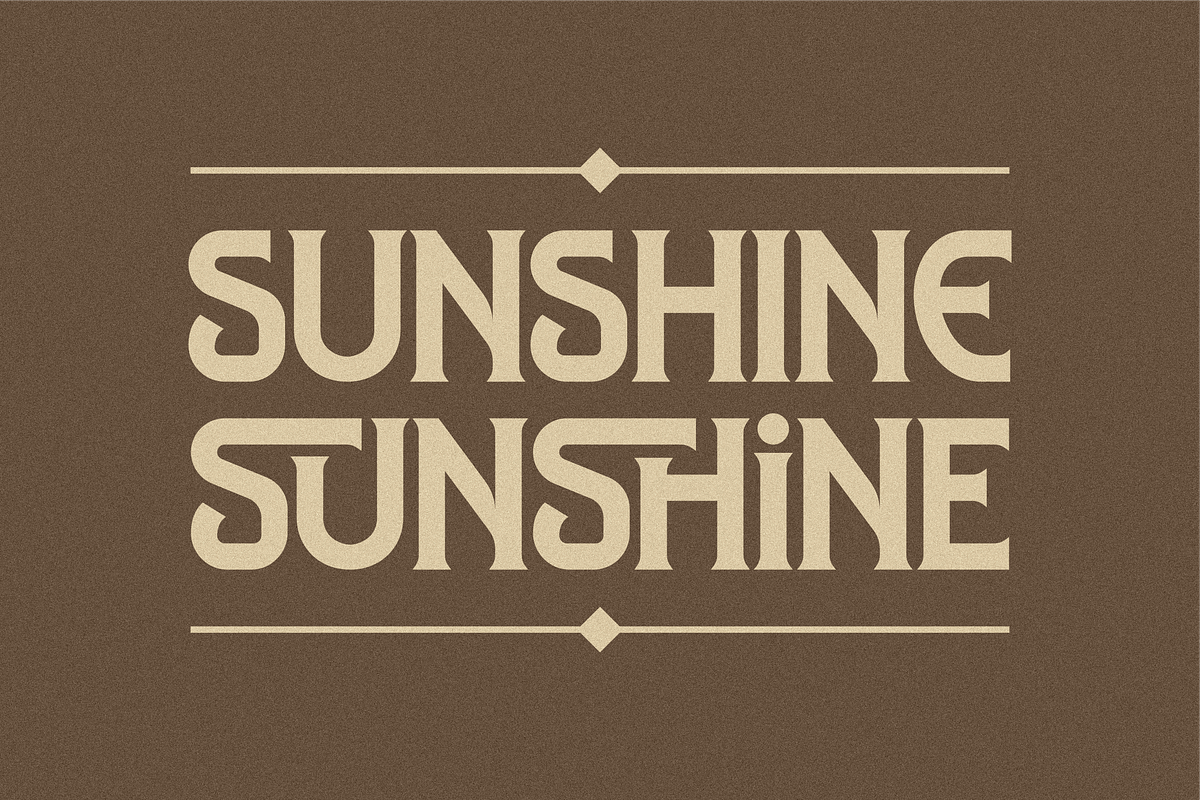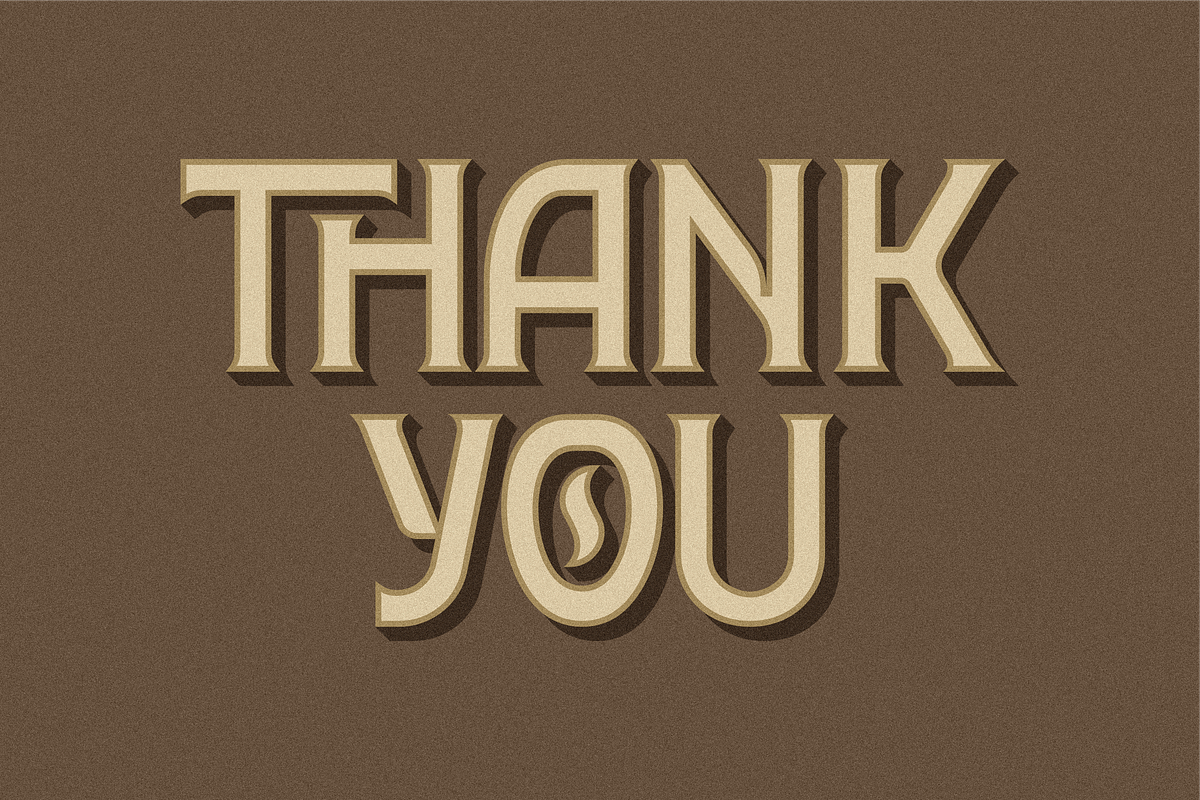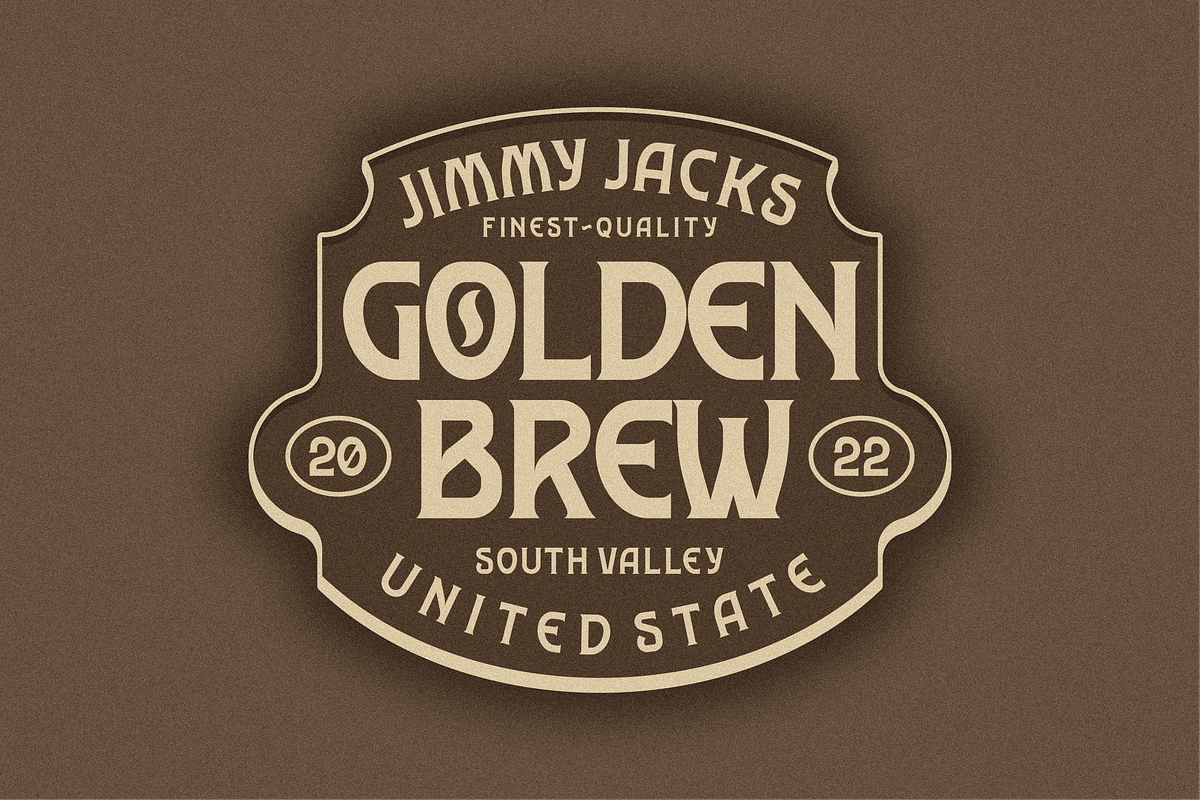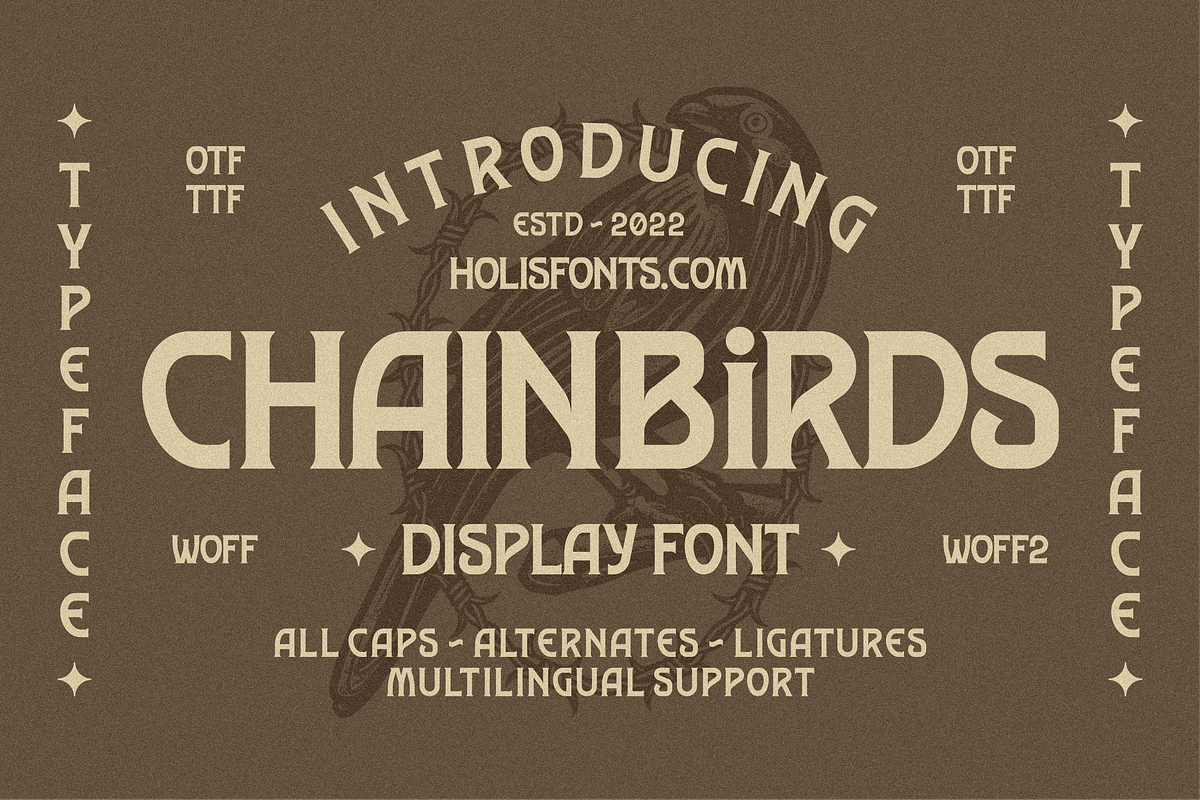
Chain Birds Vintage Font
Chainbirds is a classic and old font inspired by classic signs in European countries and cities, this font is available in all caps characters, but supports multiple languages and is equipped with several ligatures and alternates that will enhance your design.
- All caps
- Numeral